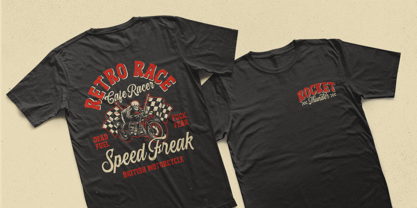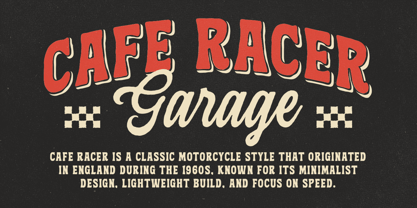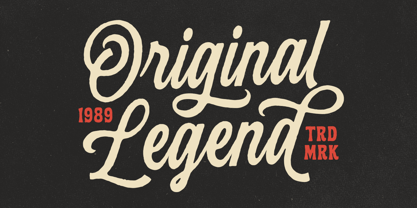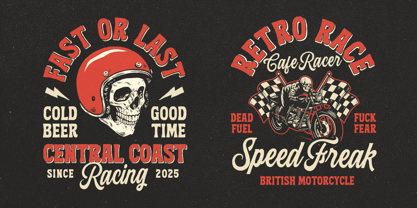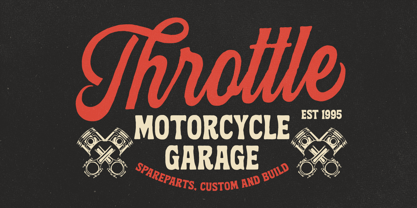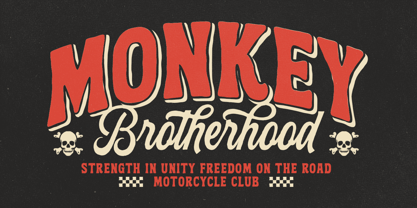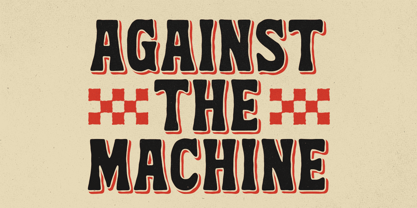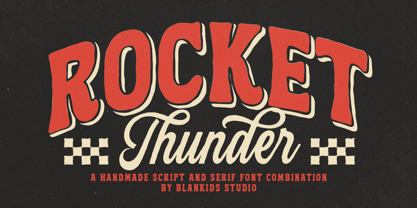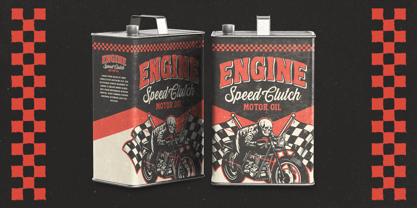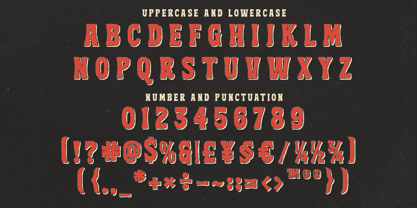
Rocket Thunder
by Blankids
The Rocket Thunder Font Family was designed by Bangkit Tri Setiadi and published by Blankids. Rocket Thunder contains 3 styles and family package options. More about this family
Rocket Thunder a Handmade Duo Font is made for any professional project branding, such as logotype, watermarks, poster, branding, promotions, product packaging, etc. Every letter has a vintage design. This font comes script and serif style. Rocket Thunder font includes a full set of vintage uppercase and lowercase letters, numerals and punctuation. This font has a Vintage style. See the previews above to get some inspiration on how to use them. Happy designing!